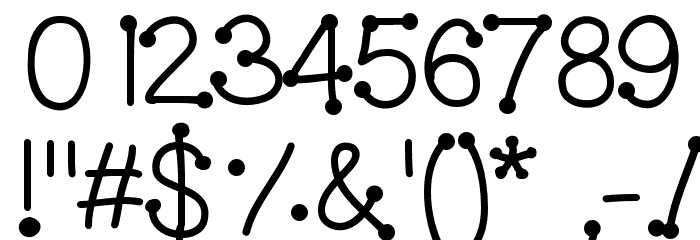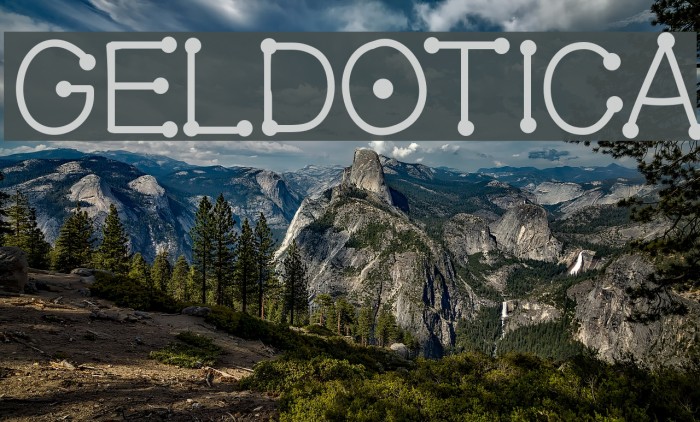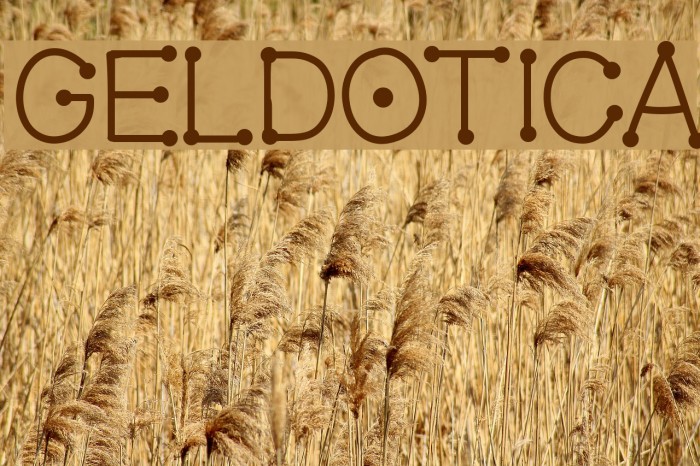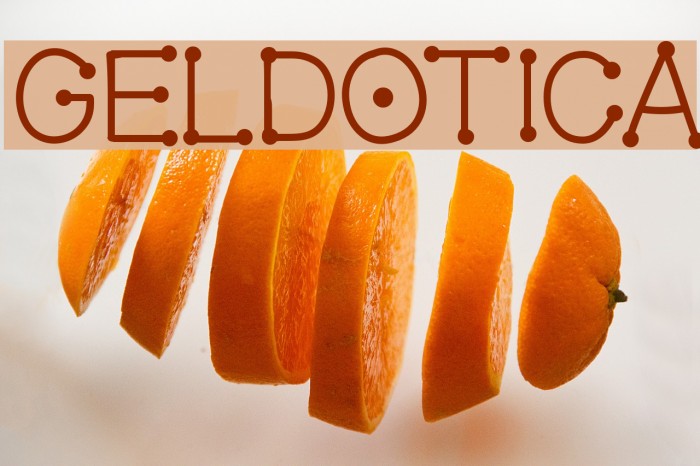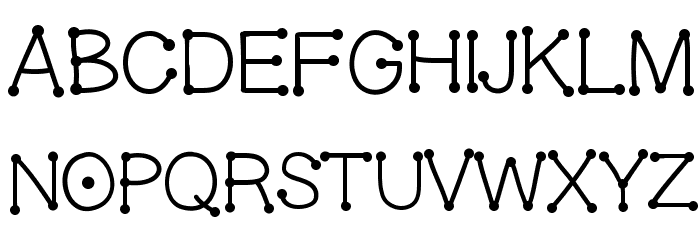
GelDotica
This playful and unique font features a distinctive dot pattern at the end of each stroke, creating a whimsical and engaging appearance. The characters are bold and rounded, with a consistent thickness throughout, giving it a cohesive and modern look. The uppercase and lowercase letters maintain a uniform style, while the numbers and special characters are designed to match the overall aesthetic. This font stands out with its decorative elements, making it ideal for creative and fun projects.
A playful, dot-accented font with bold, rounded characters.
- Proposed Projects: Ideal for children's books, playful branding, party invitations, and creative posters.
- Overall Style: Modern, Decorative